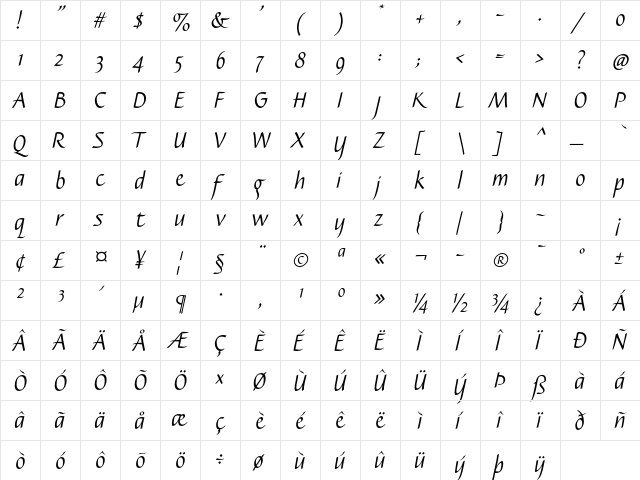
Caterina LT Std Light Italic Font Preview
| Foundry | Linotype GmbH |
| Designer | Paul Veres |
Design Context for Caterina LT Std Typeface
Caterina LT Std offers clean, dependable letterforms without strong stylistic allegiance, making it a practical choice for designers who need flexibility. Its italic angle brings a sense of urgency and motion to the letterforms. Its slender proportions lend an understated elegance to any composition.
Pro Tip: Try Caterina LT Std for annotation and caption copy alongside an upright companion — the contrast in angle creates a dynamic but ordered typographic system.